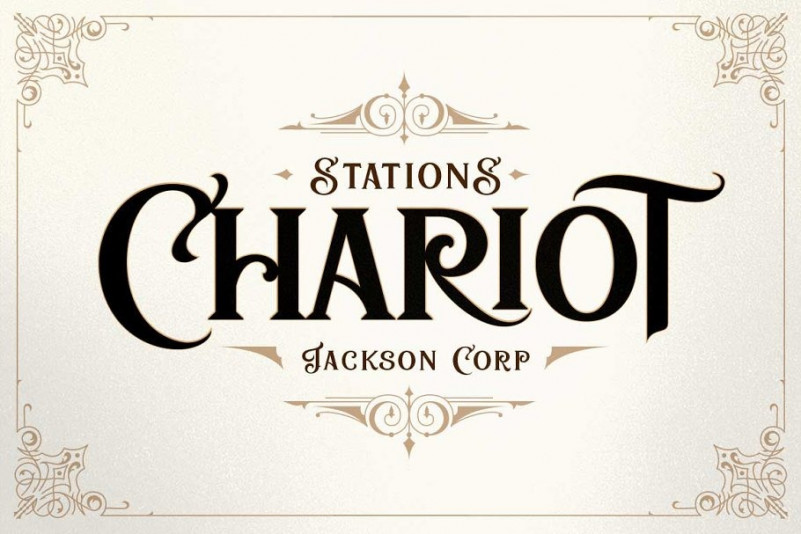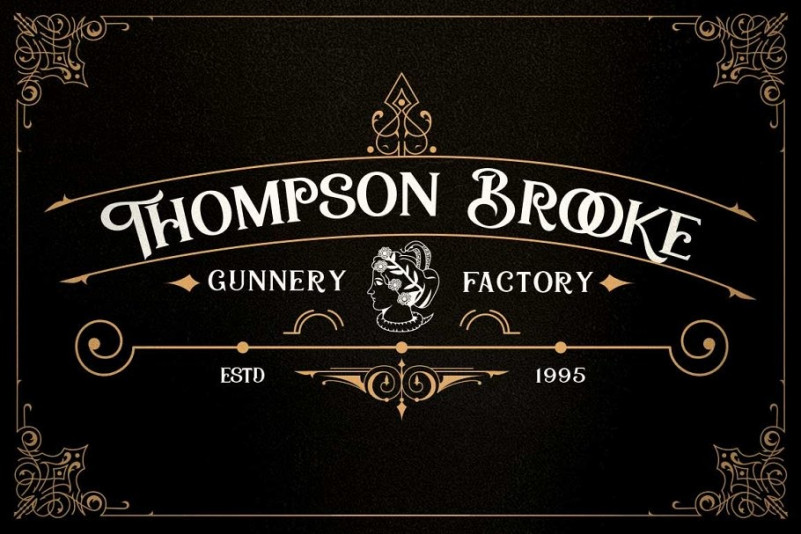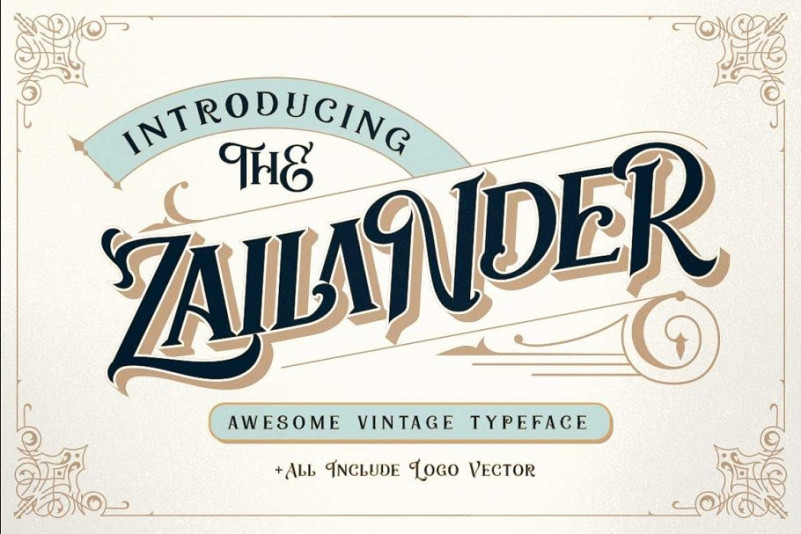
Zailander Font
Zailander is a font inspired by beautiful vintage sign art and lettering. The font comes with special uppercase letters and some alternate characters to give your designs an elegant and artistic look. It is perfect for logo and packaging design, short phrases or headlines. Furthermore the product includes a set of vector ornaments and logo.